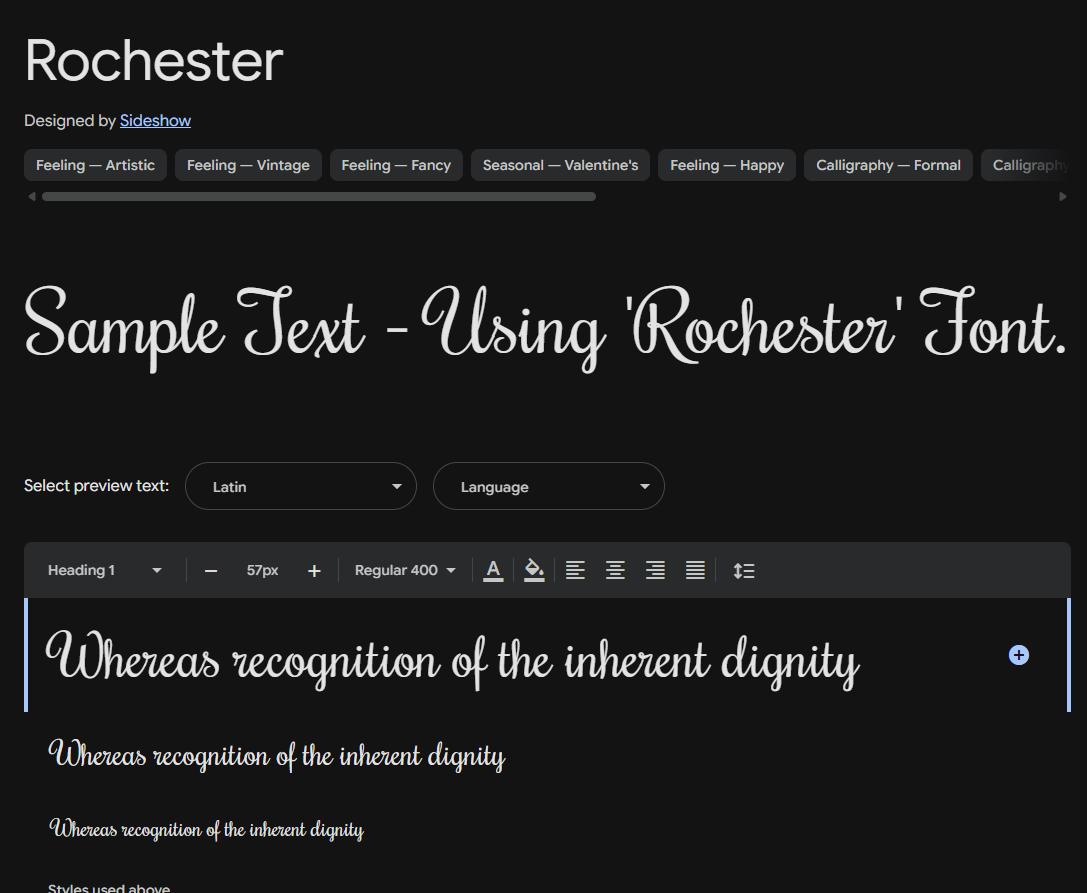
Evoking the cinematic sophistication of early twentieth-century hand-lettering, Rochester is a singular script typeface from the Sideshow foundry that masterfully bridges the aesthetic divide between Victorian formal calligraphy and the streamlined geometry of the Art Deco era. This monolinear display face, meticulously crafted by Kevin Cherry, leverages a consistent stroke weight and upright vertical metrics to ensure optimal legibility across high-resolution digital displays while maintaining the fluid rhythm of traditional brushwork. Technically optimized for the web through refined kerning pairs and balanced sidebearings, Rochester's solitary style utilizes precise bezier curves to simulate the organic connectivity of hand-drawn signatures, offering a semantically rich typographic solution for branding that requires a synthesis of vintage Hollywood glamour and modern OpenType performance.
The Rochester font family, inspired by early 20th-century monolinear calligraphy, expertly synthesizes a sophisticated Victorian elegance with an active, upright posture that bridges the divide between formal structure and informal charm. Its artistic fluidity is defined by consistent stroke weights and graceful loops, evoking a vintage nostalgia that is perfectly suited for fancy digital stationery, Valentine's Day invitations, or any happy and playful branding project. While primarily celebrated for its cute and sophisticated curves, the typeface possesses a sturdy structural integrity within its glyph architecture that offers a grounded, almost rugged legibility in diverse display sizes, allowing it to maintain an artistic, fancy, and active visual rhythm that remains timelessly formal yet invitingly playful.
If you need a stylish alternative to Rochester, Jua and Schoolbell provide a similar hand-drawn charm that fits perfectly into your creative layouts. These fonts maintain that elegant script feel while offering a distinct look that keeps your typography fresh and engaging.
Rochester thrives in vintage, Victorian, and elegant designs that prioritize a sense of historical charm and handcrafted flair. Its calligraphic structure reflects early 20th-century advertisement aesthetics, achieving high visual impact in heritage branding through its specific stroke modulation.
Clean sans-serifs or classic serifs provide the necessary structural contrast to balance Rochester's ornate, flowing curves. Utilizing a geometric sans-serif creates a typographic hierarchy that anchors the script's fluid descenders and prevents visual clutter in complex layouts.
Rochester is not recommended for extensive body copy as its decorative script nature significantly reduces readability in dense paragraphs. Due to its specific x-height and overlapping ligatures, the font suffers from legibility degradation when set at sizes below 16 pixels in standard web environments.
This font excels in logo design for luxury brands, boutique services, and artisanal products seeking a sophisticated, personal touch. The upright script classification allows for a stable baseline, ensuring brand recognition while maintaining a high degree of vector scalability without losing delicate terminal details.
To ensure the intricate loops and strokes remain clear, Rochester should ideally be used at a minimum size of 24 points for digital displays. Optical clarity depends on the stroke-to-space ratio, which becomes compromised in script faces at smaller scales, leading to unintended optical crowding in the glyph counters.
Rochester is a premier choice for wedding stationery headers, offering a romantic and polished look that feels both timeless and accessible. Its monolinear appearance mimics professional ink-pen calligraphy, providing a high-fidelity digital alternative to bespoke hand-lettering for high-DPI print production.
Using Rochester in all-capital letters is generally discouraged because the uppercase glyphs are designed specifically to lead into lowercase connections. Setting the font in all-caps breaks the cursive flow and results in jarring kerning gaps, as the uppercase characters lack the necessary exit strokes to link together harmoniously.
Rich, muted tones like navy blue, forest green, and metallic gold enhance the regal and vintage qualities of the font. High-contrast pairings, such as charcoal on cream, optimize luminance contrast ratios to highlight the rhythmic nature of the script's repetitive stroke widths.
Rochester is best reserved for decorative UI elements like hero banners or section titles rather than functional buttons or navigation menus. In responsive design frameworks, the lack of a diverse weight family limits its utility for micro-copy, as it does not support the variable font axes required for modern UI flexibility.
Increasing letter spacing is detrimental to Rochester because it physically detaches the cursive ligatures that define its core aesthetic. Adjusting tracking values beyond zero disrupts the intentional glyph overlap, ruining the font's calligraphic continuity and creating a fragmented visual rhythm that confuses the human eye.